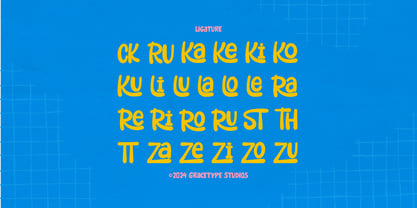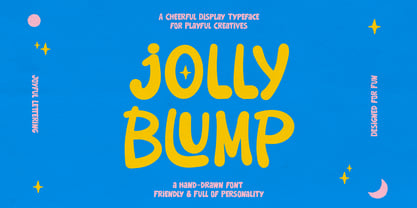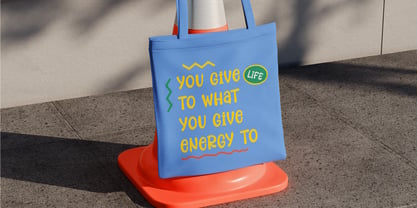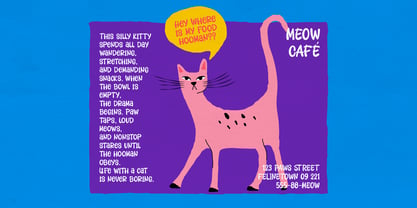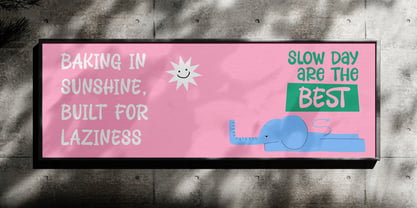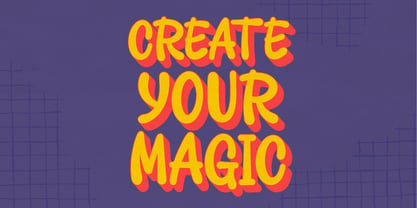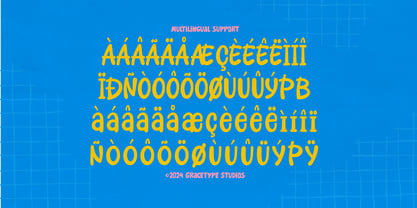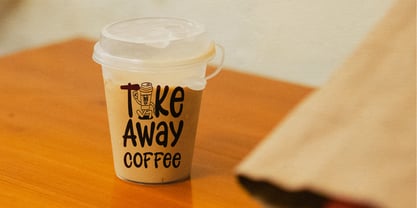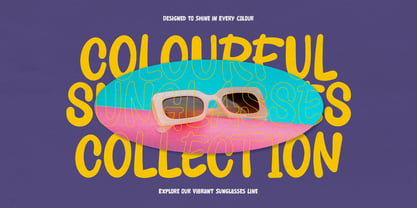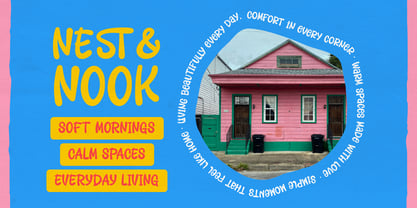
Jolly Blump
Jolly Blump | Hand Drawn Font, from Gracetypestudio, suitable for any projects such as: logos, branding projects, homeware designs, product packaging, mugs, quotes, posters, shopping bags, t-shirts, book covers, name card, invitation cards, greeting cards, label, photography, watermark, special events, and all your other lovely projects that need a Hand Drawn taste.